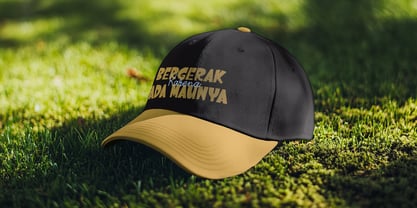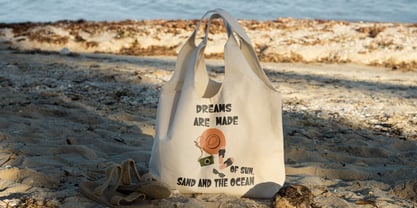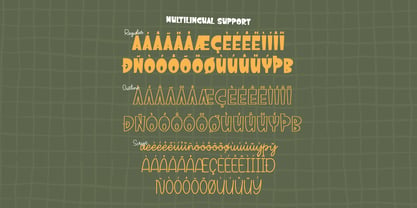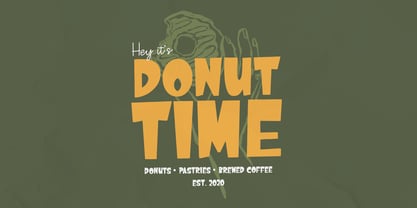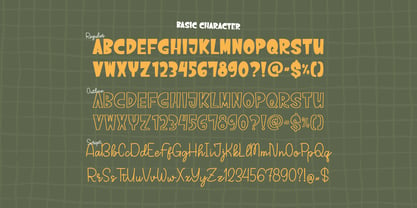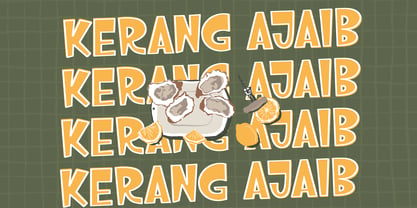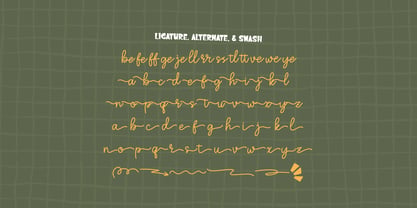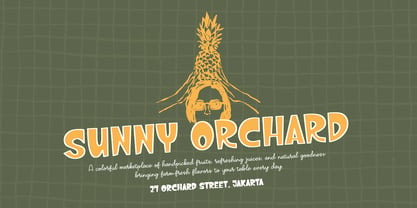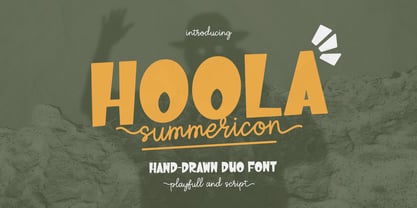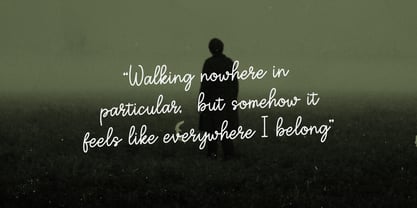
Hoola Summericon Outline
by Tini Fitriani
The Hoola Summericon Outline Font Family was designed by and published by Tini Fitriani. Hoola Summericon Outline contains 3 styles and family package options. More about this family
Hoola Summericon | Hand Drawn Duo Font, from Gracetypestudio, suitable for any projects such as: logos, branding projects, homeware designs, product packaging, mugs, quotes, posters, shopping bags, t-shirts, book covers, name card, invitation cards, greeting cards, label, photography, watermark, special events, and all your other lovely projects that need a Hand Drawn Duo Font taste.